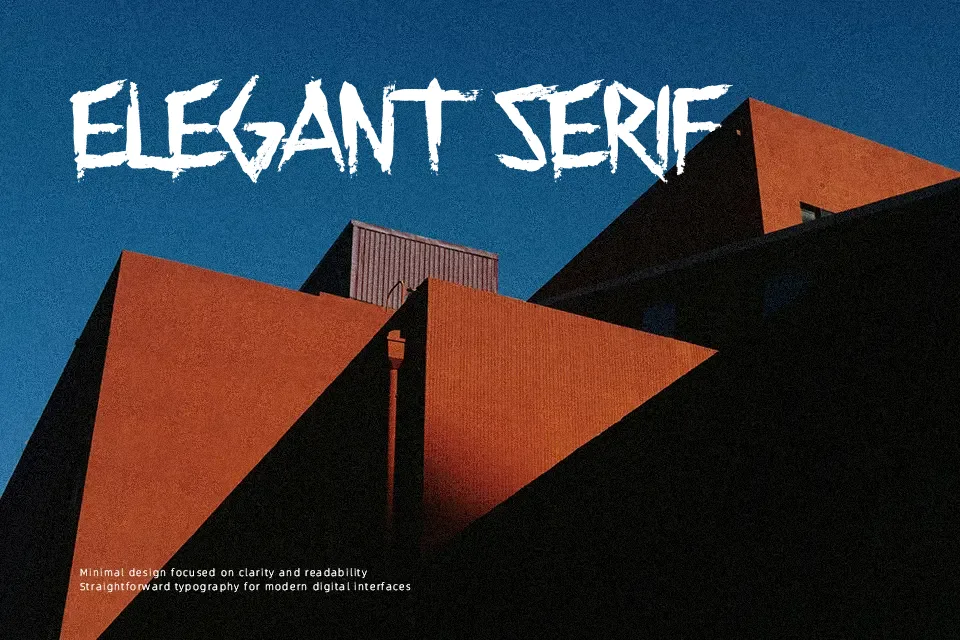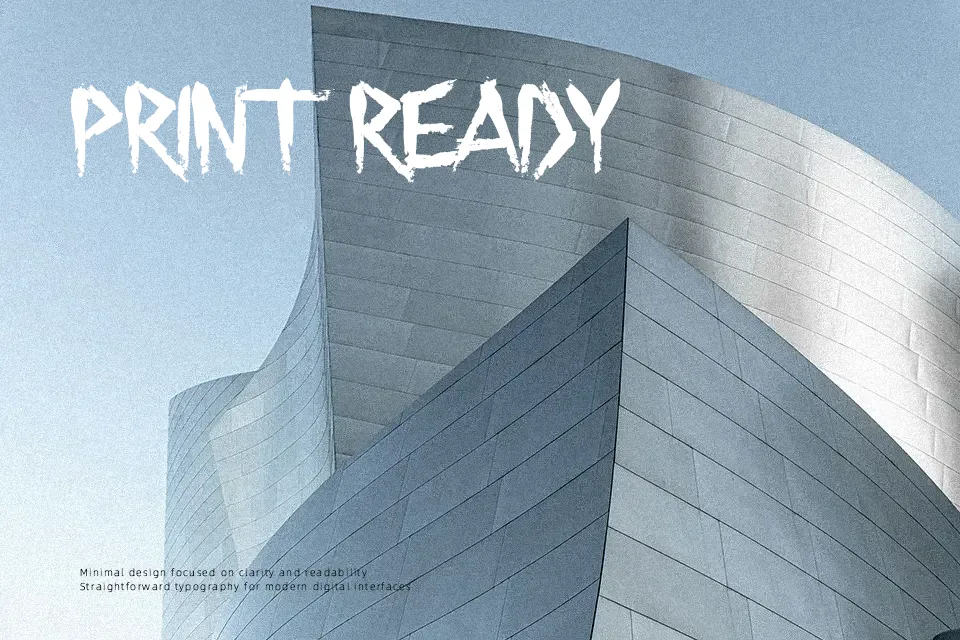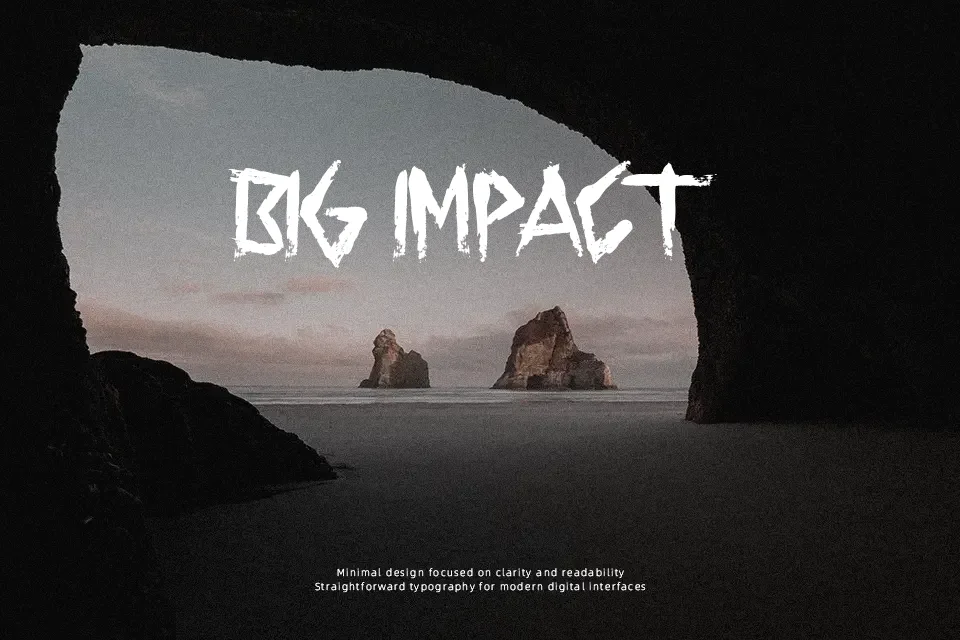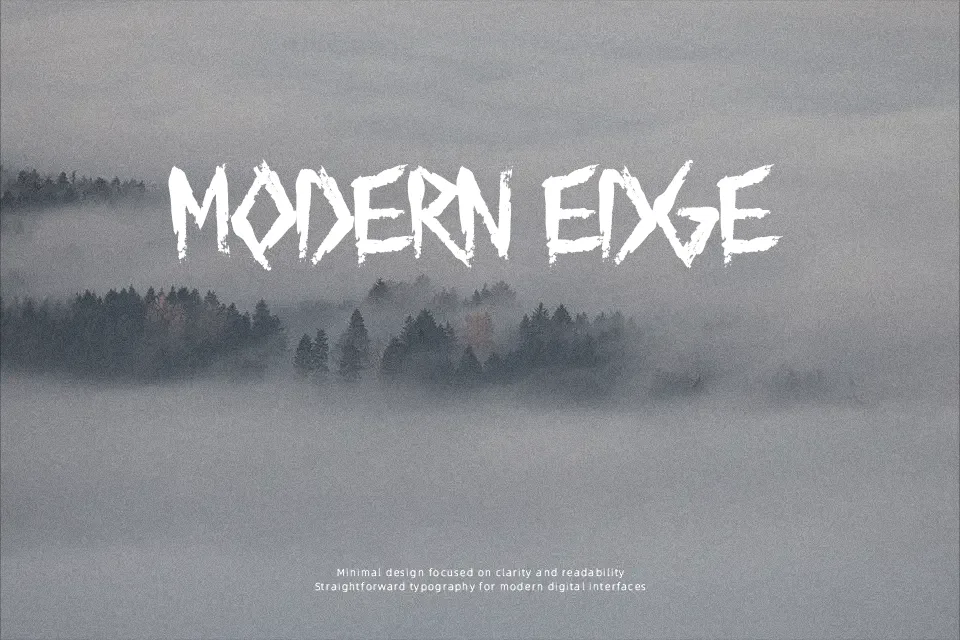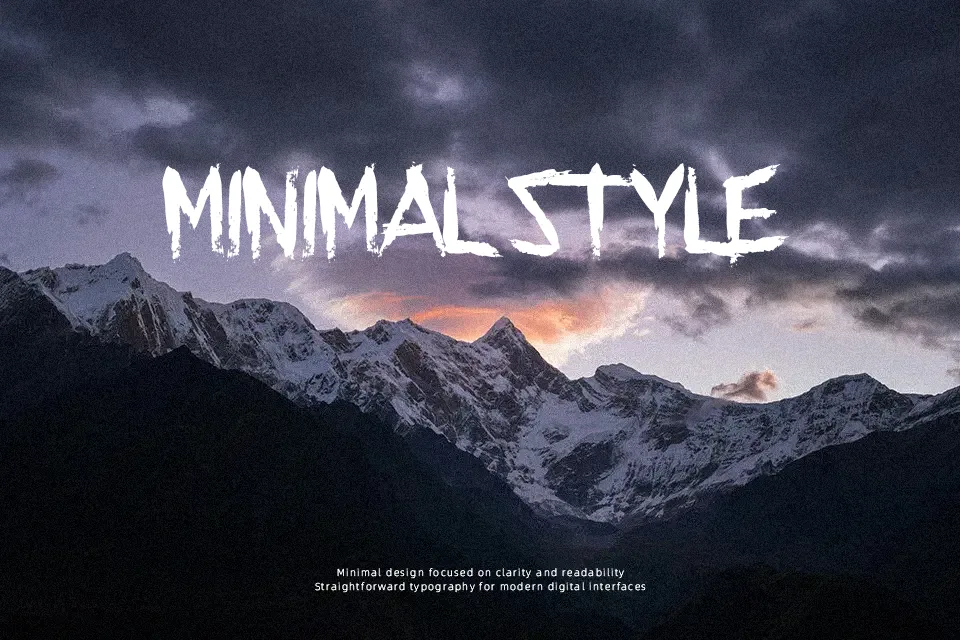
Sanguis Noctis Font
Sanguis Noctis Font presents an intensely textured display aesthetic characterized by sharp, splattered brush strokes and irregular, scratch-like contours. Each glyph exhibits violent stroke contrasts and asymmetrical terminals that simulate hasty, ink-stained scrawls. The letterforms maintain relatively tight horizontal spacing with unpredictable baseline variations, giving headlines an unsettling, frantic rhythm. While this chaotic construction creates striking focal points on horror video game titles, haunted house posters, and aggressive music packaging, dense forms reduce comfort during extended reading. Consequently, the typeface is poorly suited for body paragraphs or small interface labels, functioning most effectively when restricted to large, standalone display titles.
Best For: horror film titles,Halloween event posters,dark fantasy book covers
Not Ideal For: long paragraph text,small interface labels,dense editorial layouts
Perfect for gaming, halloween, and headline, with a dark and brush style.